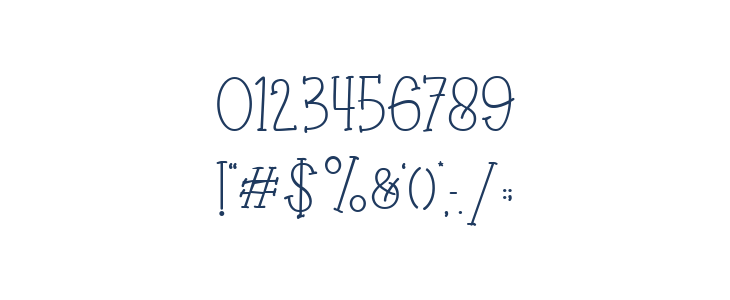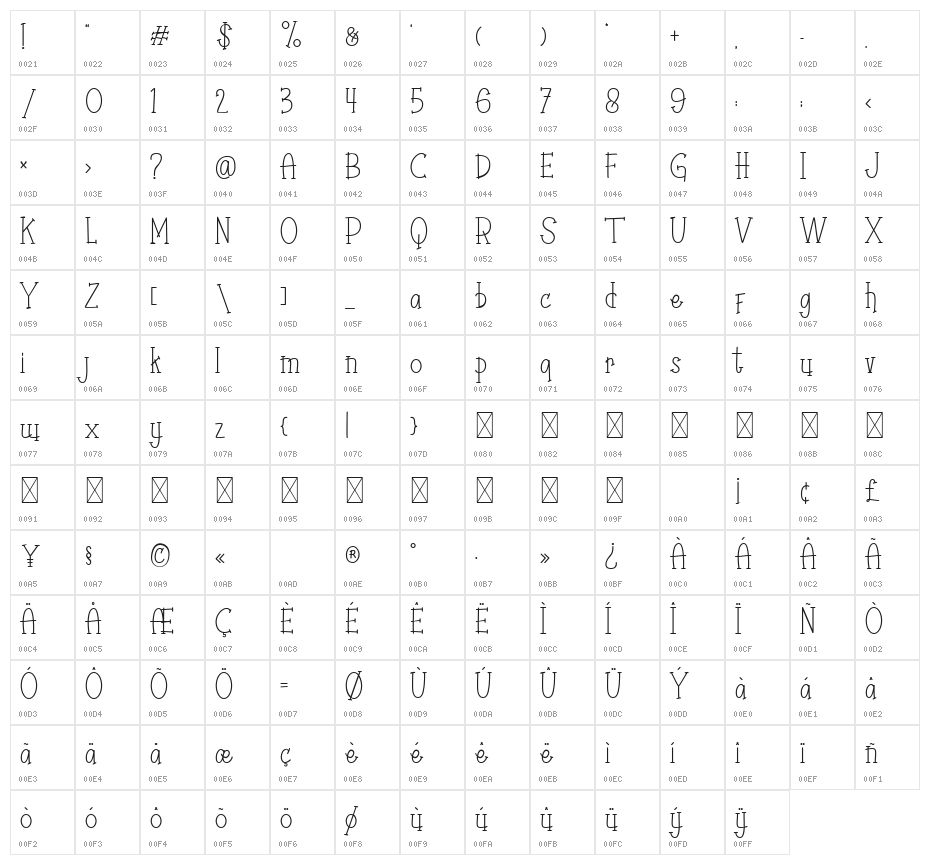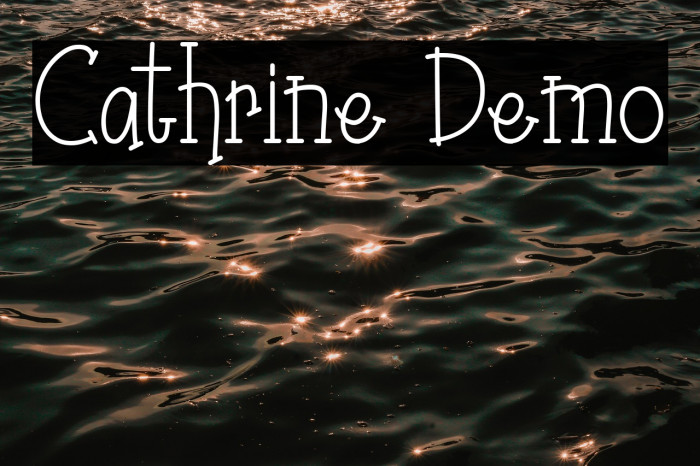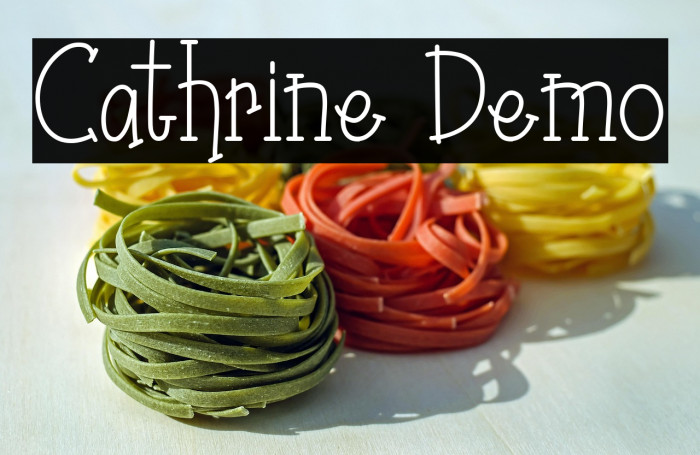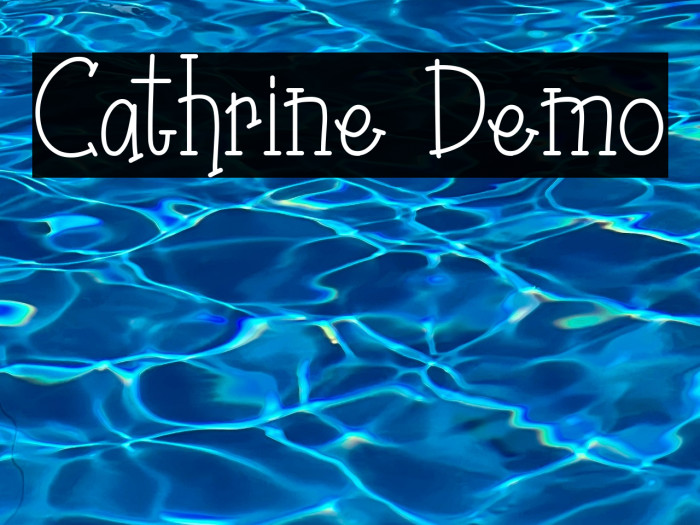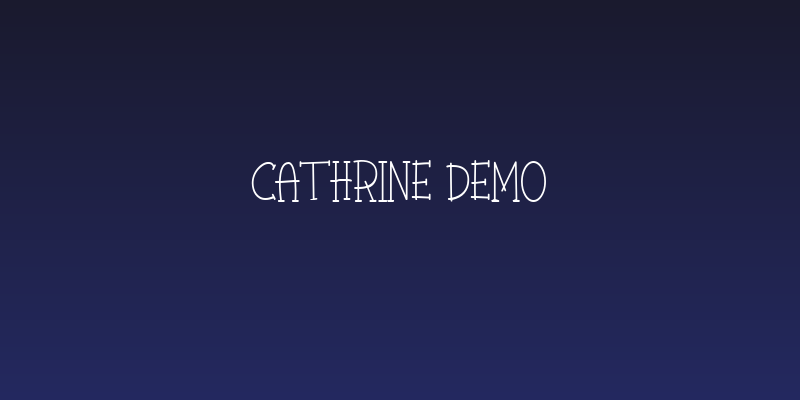
Cathrine Demo Font
Cathrine Demo Description
This font features a playful and whimsical design, characterized by its tall, narrow letters and slightly irregular strokes. The uppercase letters are particularly elongated, giving them a distinctive, quirky appearance. The lowercase letters maintain a similar style, with some characters featuring unique loops and curves that add to the font's charm. The numerals are consistent with the overall style, maintaining the same playful and informal aesthetic. Special characters are also included, each designed to complement the font's overall look. This font's unique style makes it ideal for creative projects that require a touch of personality and fun.
| Overall Style | Whimsical, Playful |
| Proposed Projects | Ideal for children's books, greeting cards, playful branding, and creative posters. |